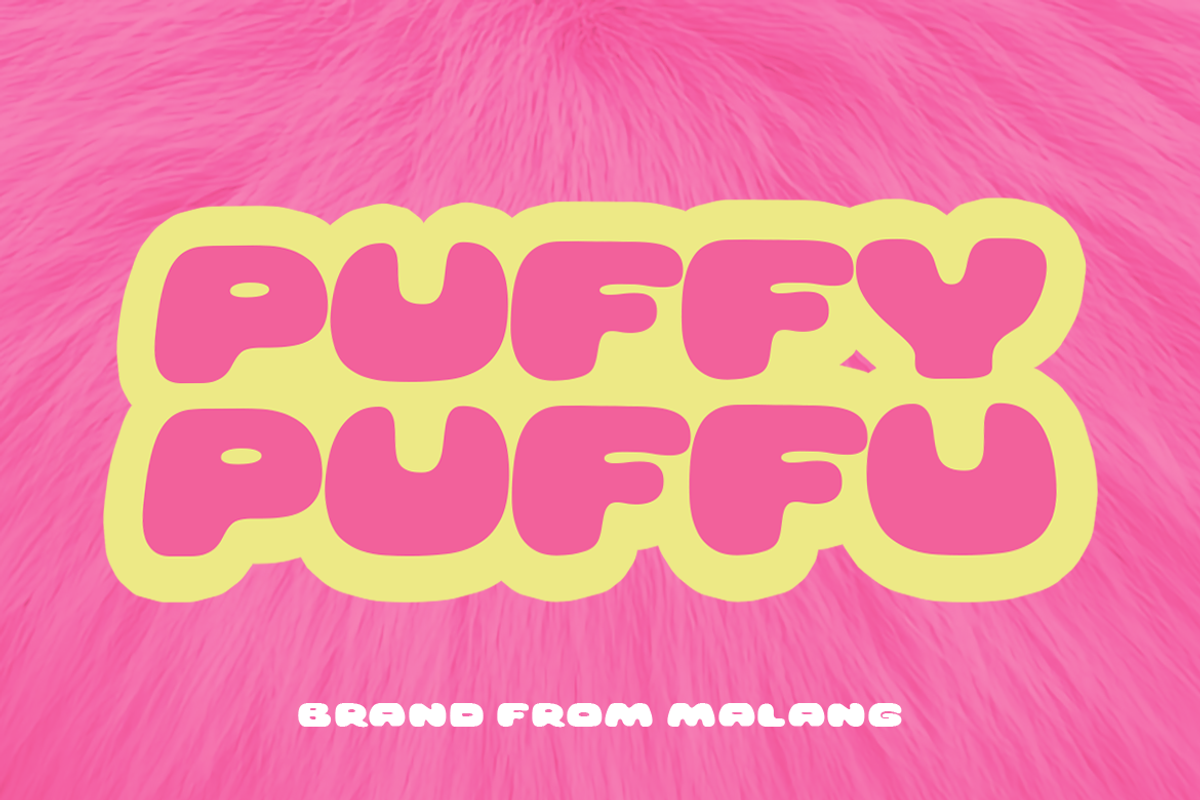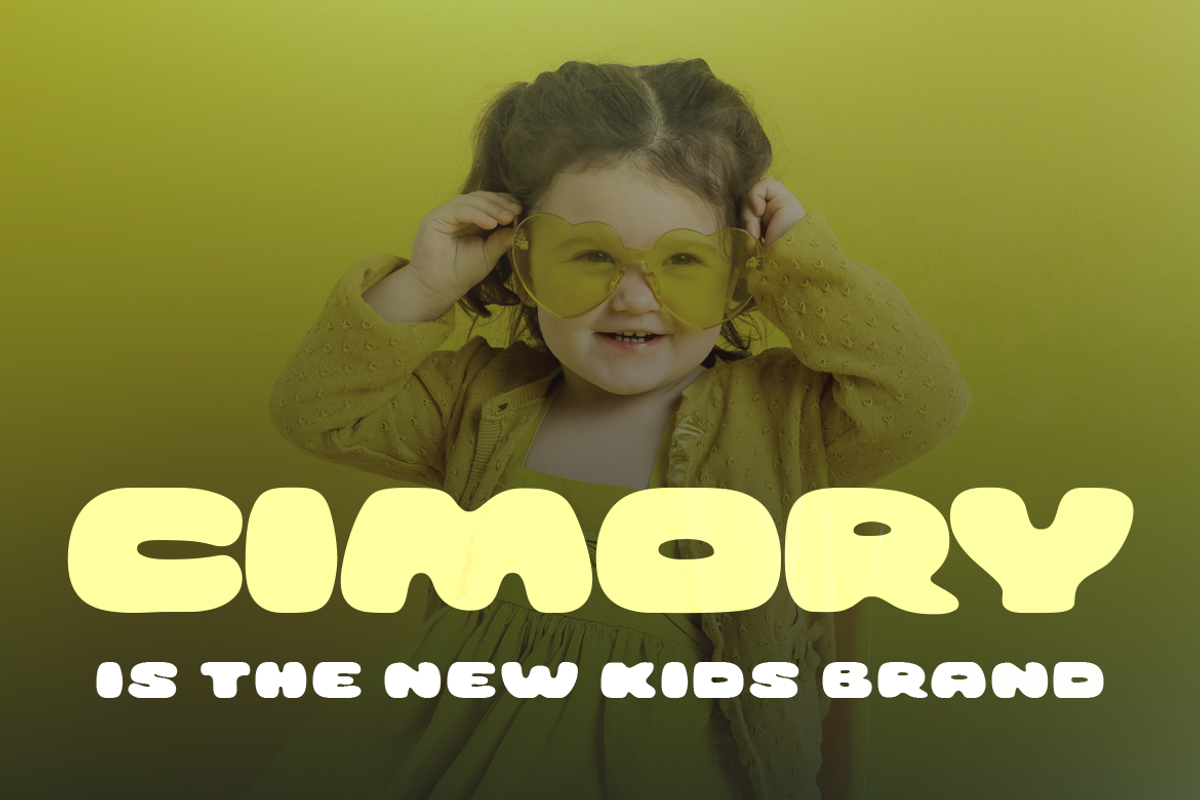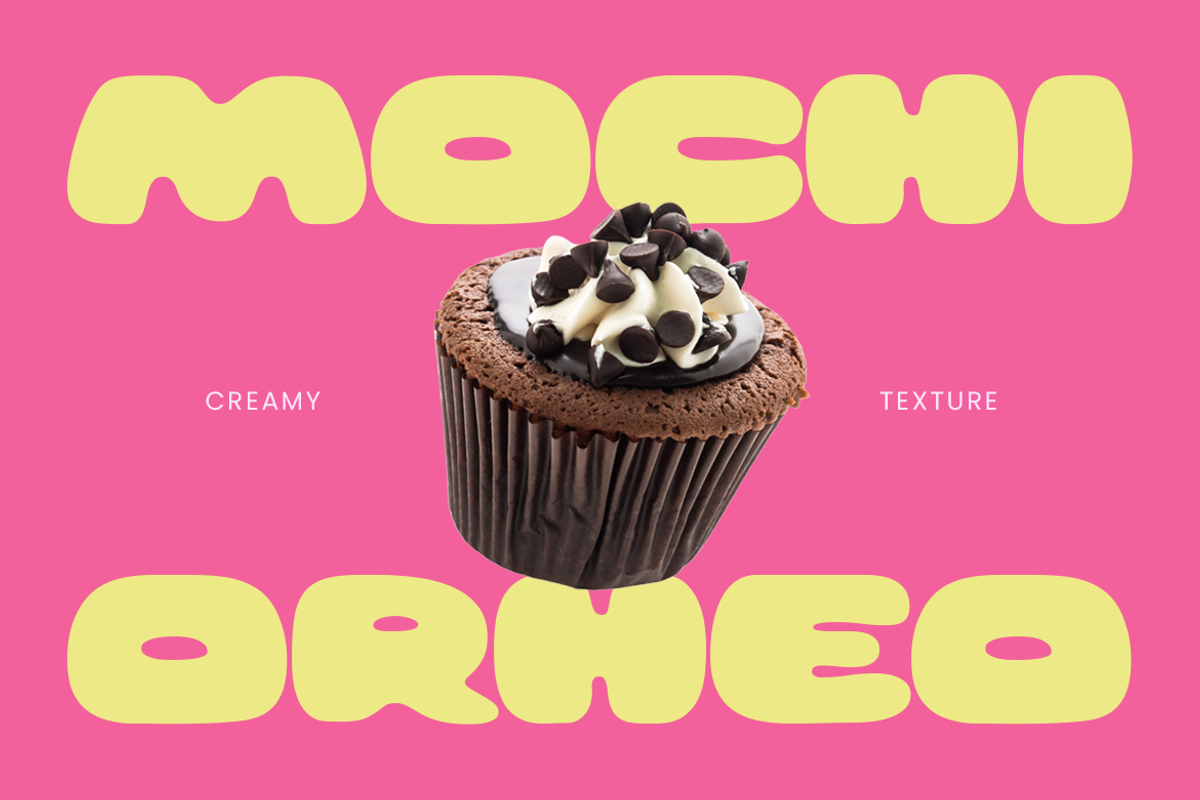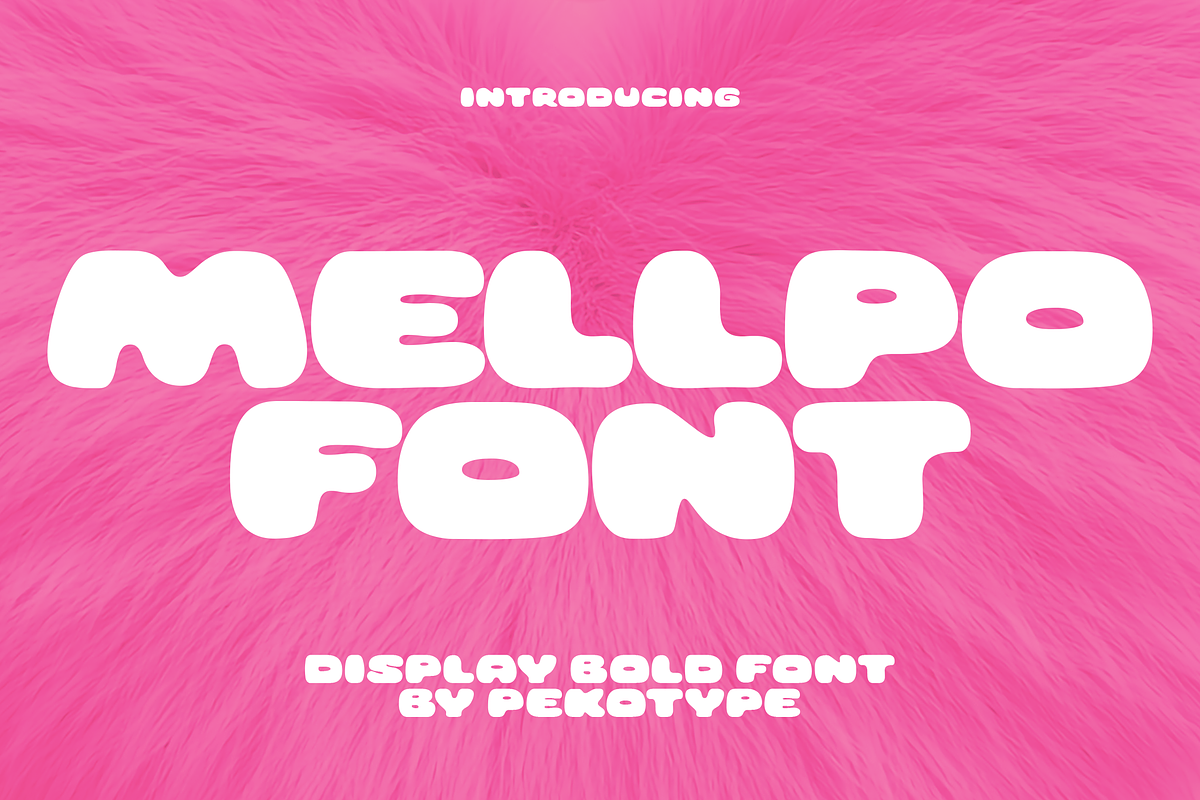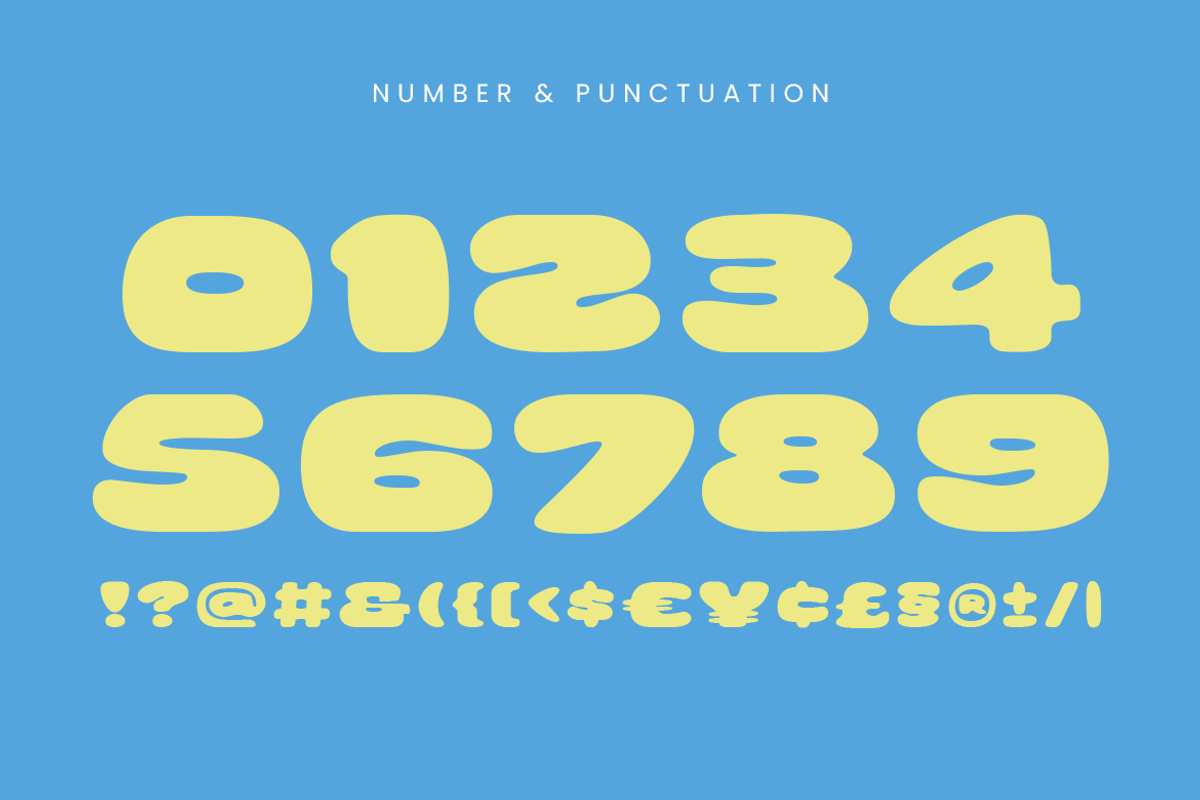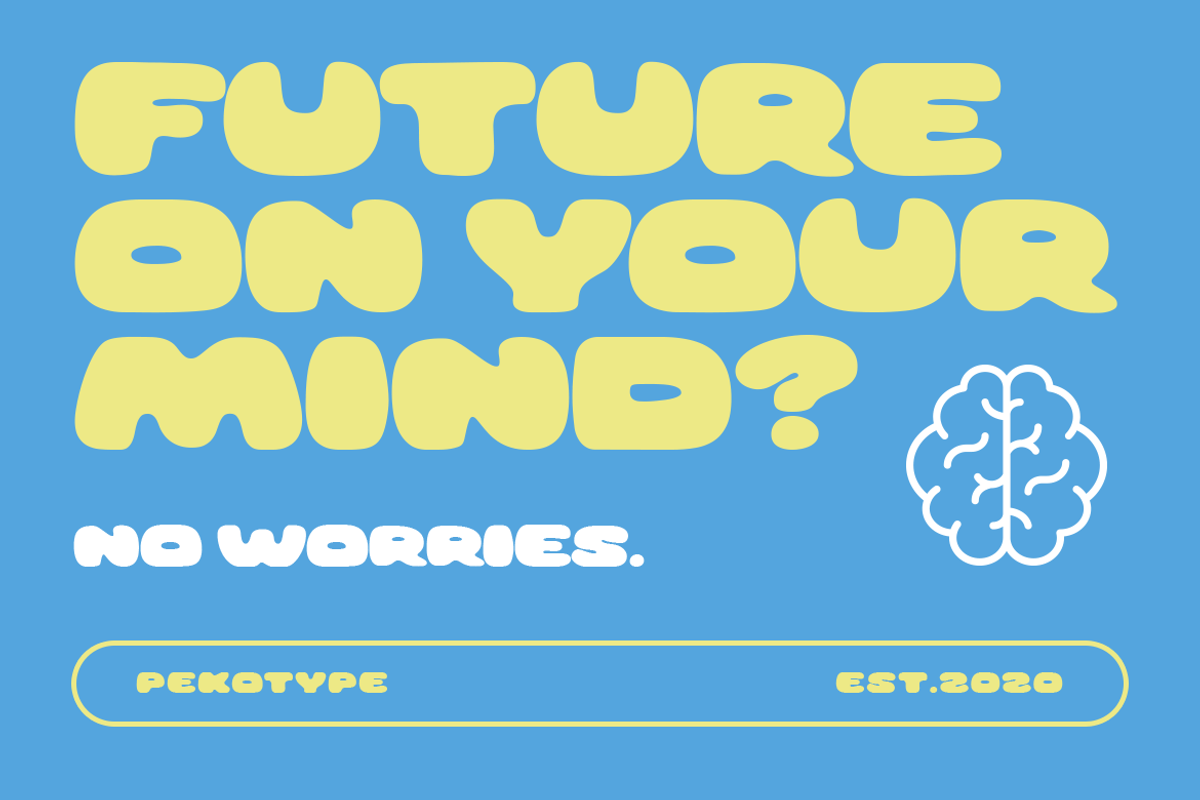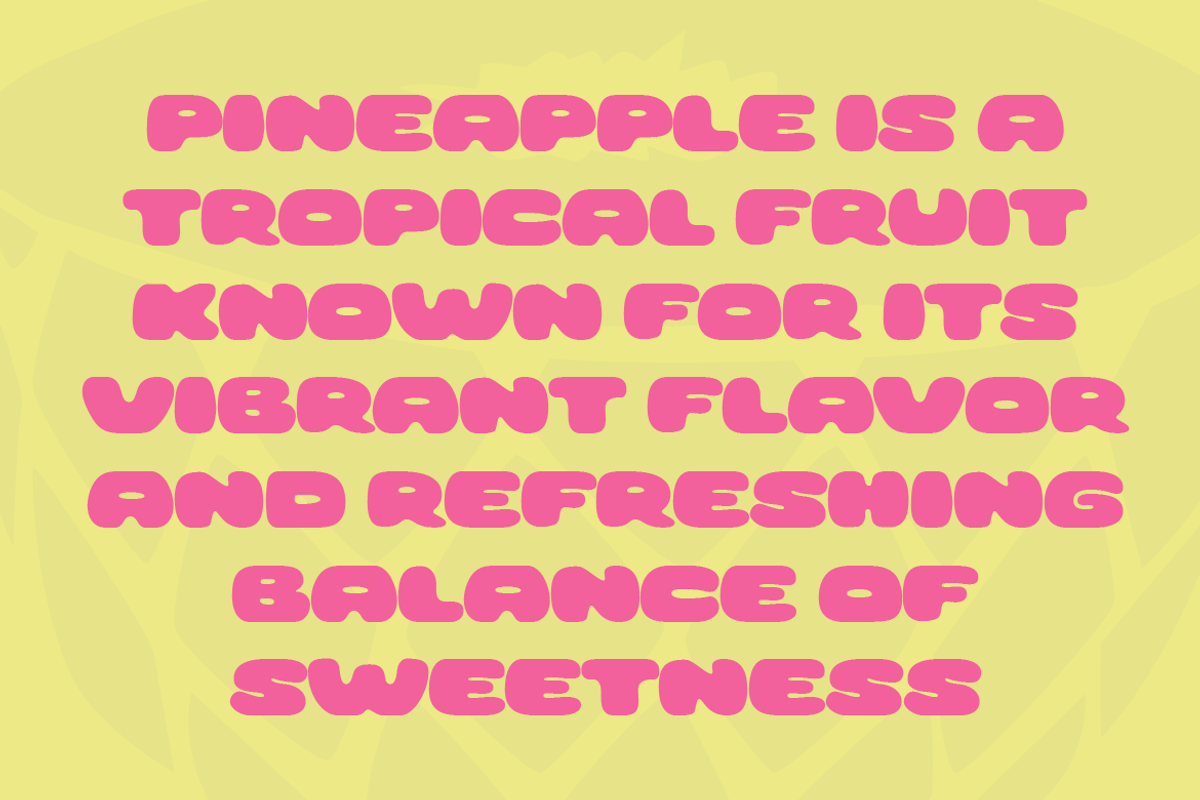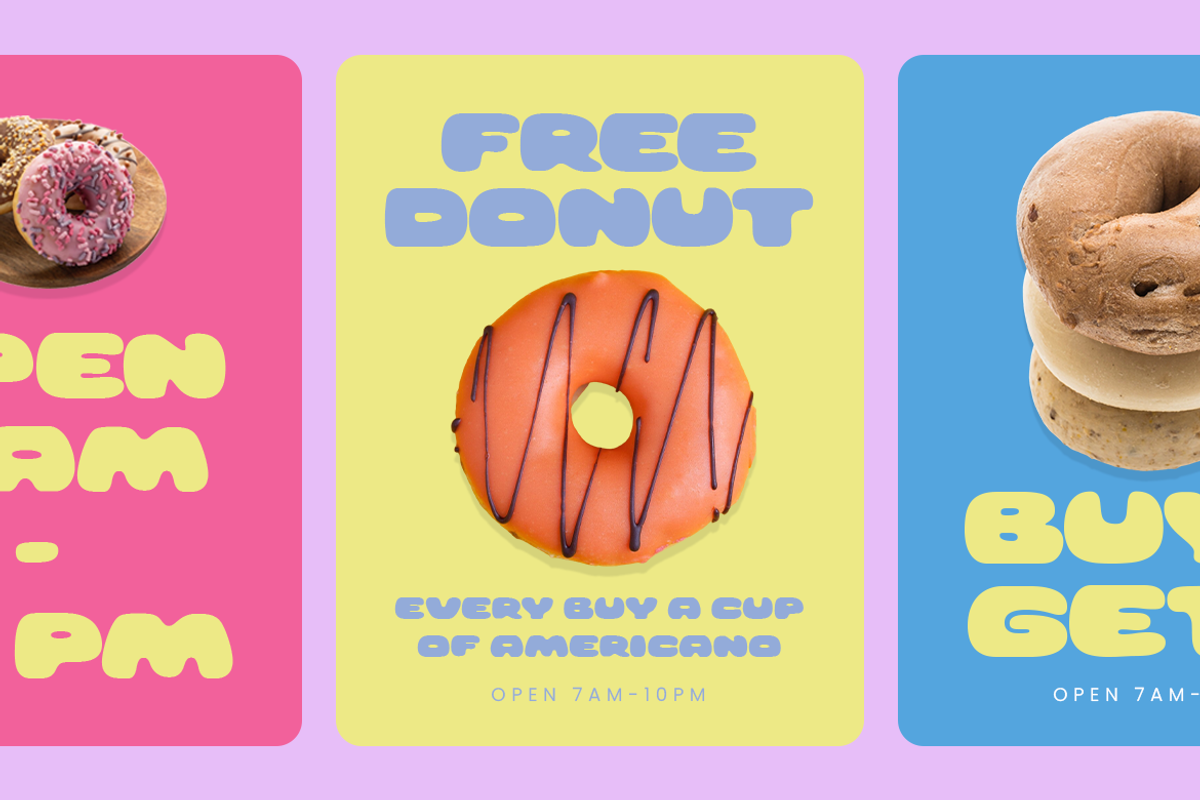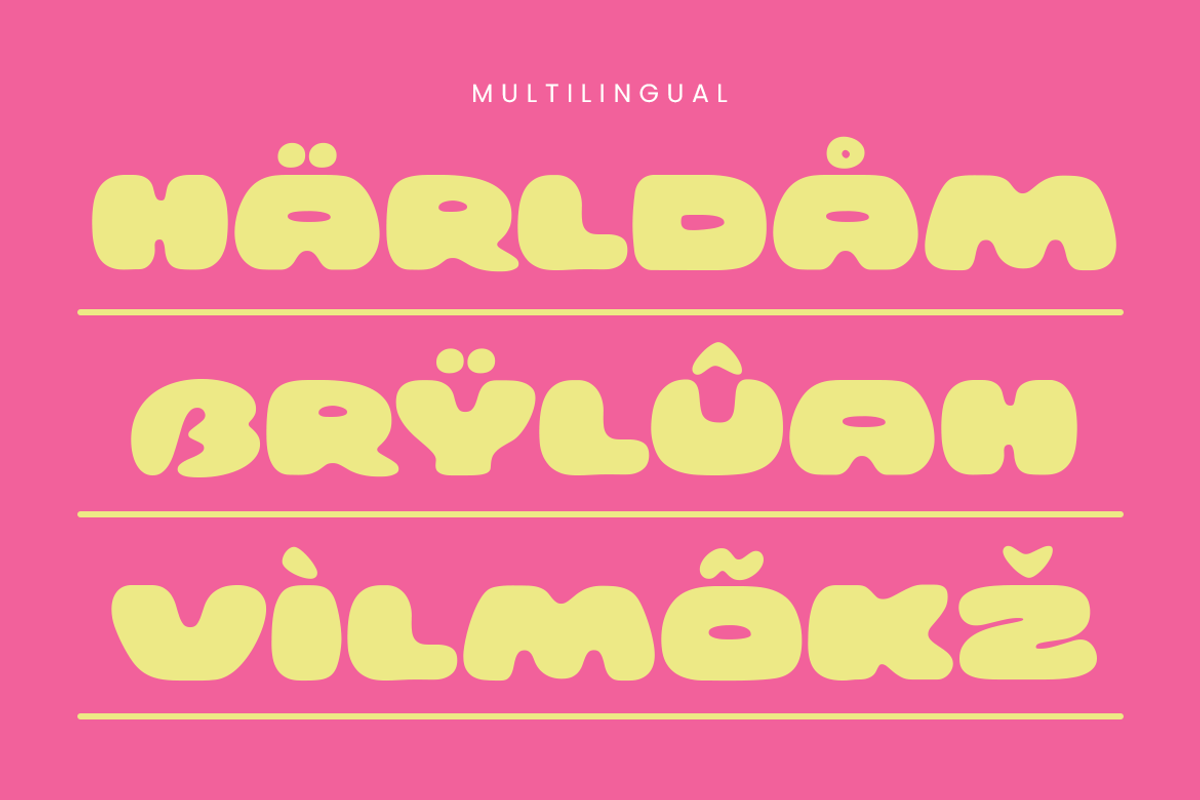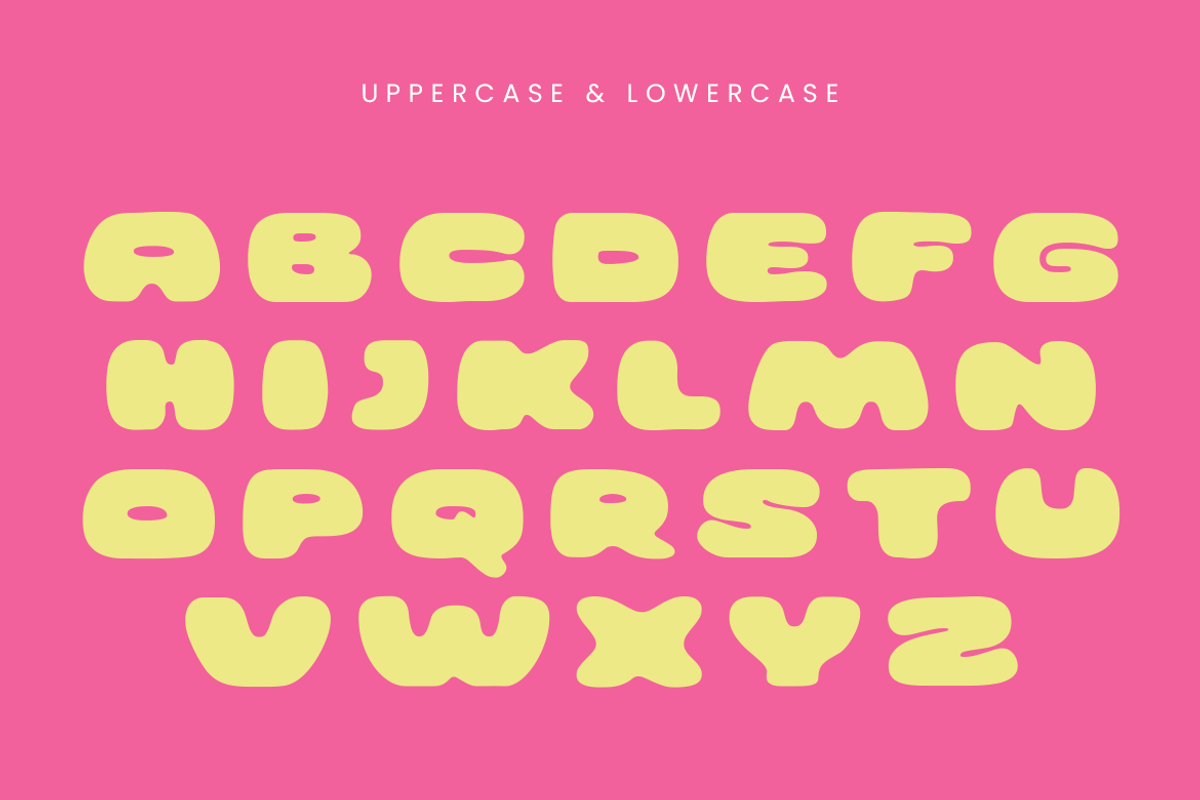
Mellpo - Expanded Bold Organic Font
Mellpo - Expanded Bold Organic Font is a bold, puffy display font with a soft and playful vibe. The rounded, bubbly letter shapes give it a sweet and friendly look, almost like candy or marshmallows. It feels fun, bright, and full of energy, making every word stand out in a cute and eye-catching way. MELLPO comes with uppercase, lowercase, numbers, symbols, and multilingual support, so it’s easy to use for many creative projects.
This font is perfect for snack and dessert branding, candy packaging, donut shops, kids' brands, music covers, social media posts, posters, and fun promotional designs. It works great for colorful packaging, playful quotes, product ads, and anything that needs a cheerful and soft touch. If you’re looking for a bold display font that feels sweet, happy, and super fun, MELLPO is ready to make your design pop.
- All Caps
- Number, Symbol, & Punctuation